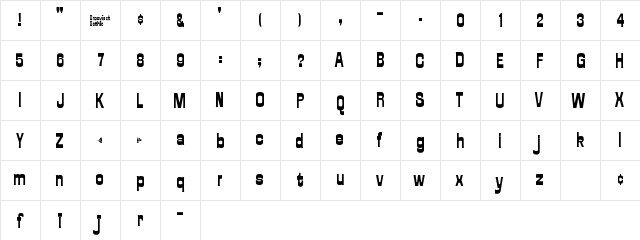
DXS Grooviest Gothic Regular
Design Context for DXS Grooviest Gothic Typeface
DXS Grooviest Gothic takes a clean, functional approach — its unadorned letterforms prioritise legibility and work reliably across screen and print environments.
Font Pairing: Works well alongside a characterful serif or display font that can carry the expressive load while DXS Grooviest Gothic handles the functional copy.
Pro Tip: Pair DXS Grooviest Gothic with a display or serif font for headlines — its neutral character makes it an excellent supporting player in complex typographic systems.